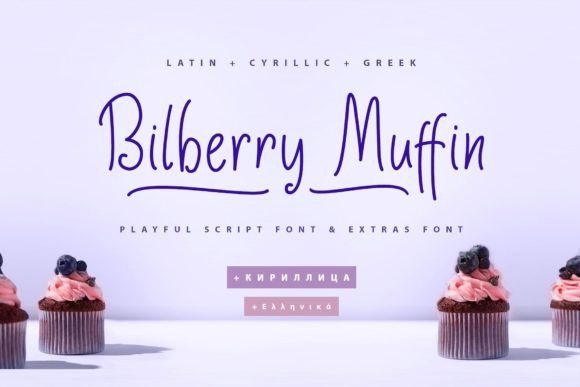
Get ready to infuse your designs with a touch of whimsy and elegance with Bilberry Muffin, the enchanting script font that will transform your creative visions into masterpieces. Each letter is a work of art, carefully crafted with a playful touch, bringing life to your logos, signatures, labels, packaging designs, and blog headlines.
Imagine the delight your customers will feel when they receive your beautifully designed mugs, cards, and wedding stationery, adorned with Bilberry Muffin's delightful charm. Its versatility knows no bounds, extending to typographic designs and any project that demands a dash of creativity.
Dive into the world of Bilberry Muffin and discover a treasure trove of hand-drawn illustrations and elements, ready to add a dash of originality to your designs. Let your imagination run wild as you weave your creative magic, knowing that every uppercase and lowercase character holds a unique symbol, waiting to be unleashed upon your designs.
With Bilberry Muffin, you'll embark on a typographic adventure where every letter tells a story, every word captivates, and every design becomes a masterpiece. Unleash your creativity and let Bilberry Muffin guide you towards design brilliance.